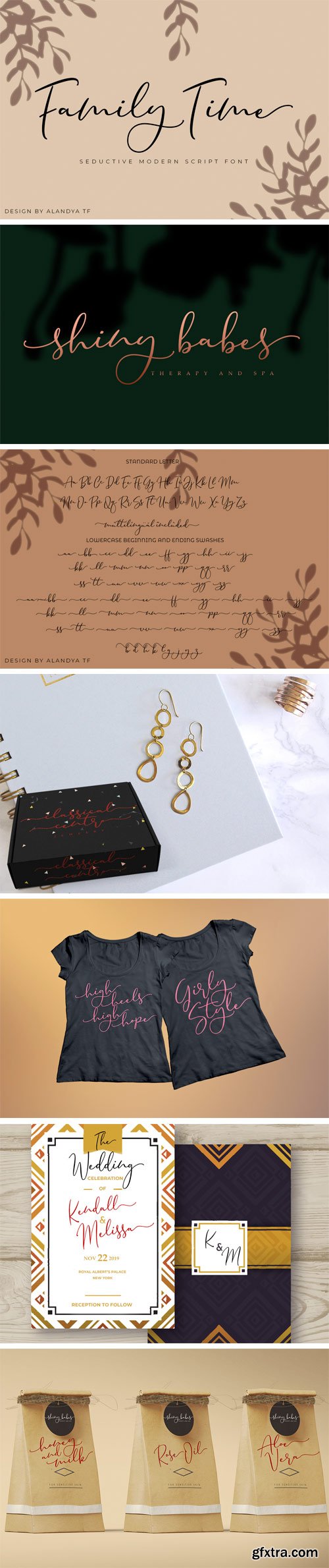
Family Time script is a seductive font that is made with a touch of elegance and feeling to give the best touch. Family Time script an elegant combination of a script and a narrow modern serif. It is slender, feminine and classy, while still maintaining a friendly feel.
Family Time script is versatile and will work perfectly for fashion, e-commerce brands, trend blogs, wedding boutiques or any business that wants to appear upscale and chic. With its two varian stylistic character Family Time script is perfect for creating original and functional designs. It has extensive language support and tons of ligatures, alternates, stylistic sets that add visual interest to every letter.